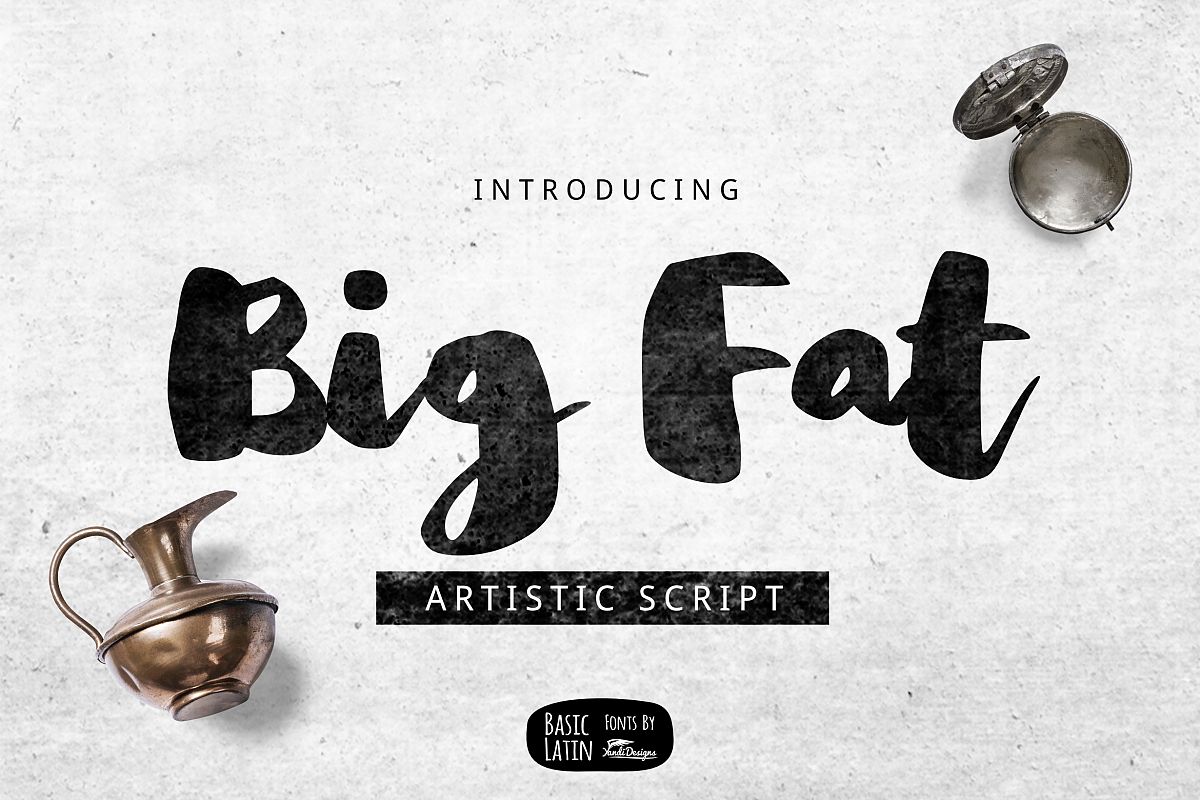
Big Fat Brush Font
Big Fat artistic bold brush multipurpose script font , suitable for many project children book, quotes, logo , heading, title etc.